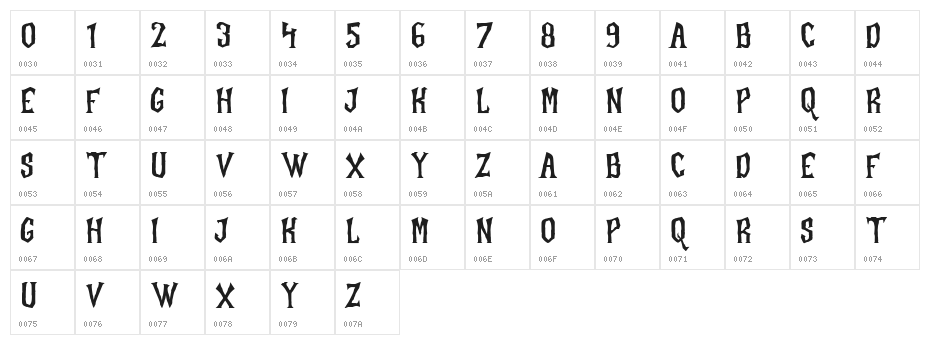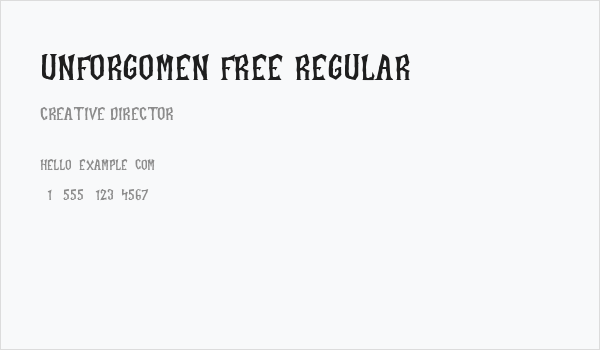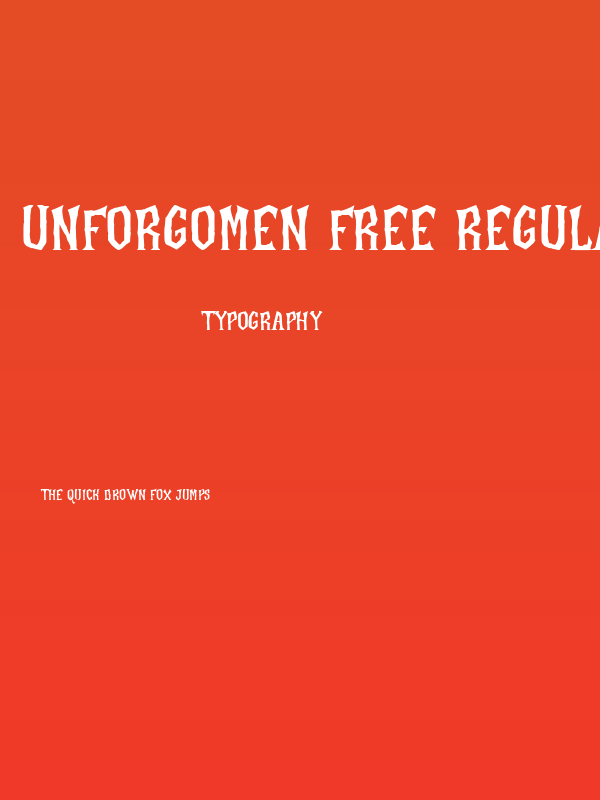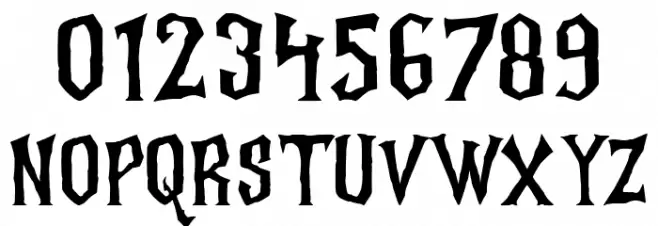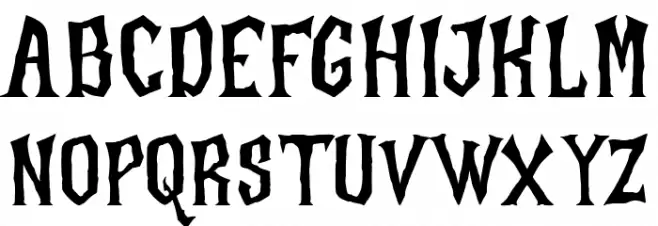
Unforgomen Free Regular Font
Unforgomen Free Regular Description
This font features a bold and dramatic style with sharp, angular edges and a slightly distressed appearance. The characters have a gothic influence, with a strong presence and a unique flair that makes them stand out. The uppercase and lowercase letters maintain a consistent style, with the numbers and special characters following suit. The overall design is eye-catching and suitable for projects that require a bold statement.
| Overall Style | Gothic, Decorative |
| Proposed Projects | Ideal for posters, album covers, video game titles, and any project requiring a dramatic and bold typeface. |